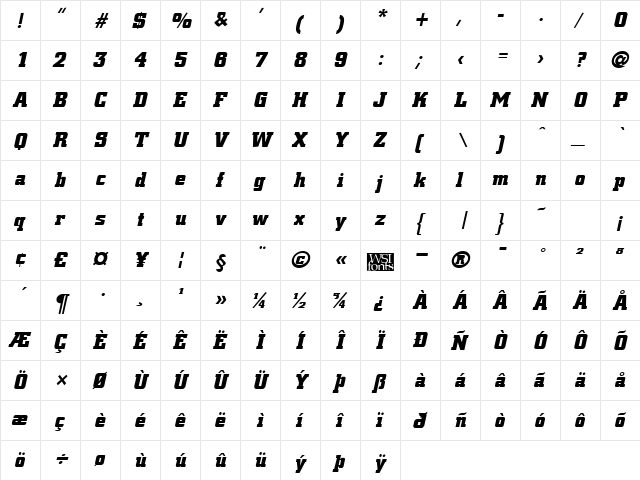
CivicBlack Italic
CivicBlack is a composed and adaptable typeface that performs quietly and consistently across a wide range of design contexts. The slanted form adds forward momentum and visual energy.
Pro Tip: Use CivicBlack for emphasis, pull quotes, and subheadings where its slanted energy can add rhythm to the layout.